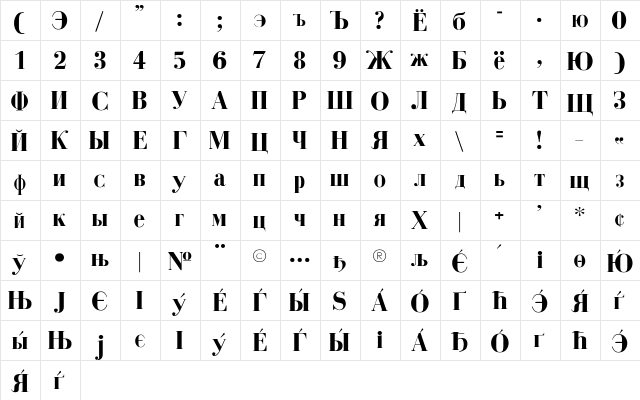
Cyrillic-Bold Regular
Design Context for Cyrillic-Bold Typeface
Cyrillic-Bold takes a measured approach to typography — its balanced proportions and neutral character make it a reliable workhorse for both digital and print work. The heavy weight commands attention and anchors typographic hierarchies.